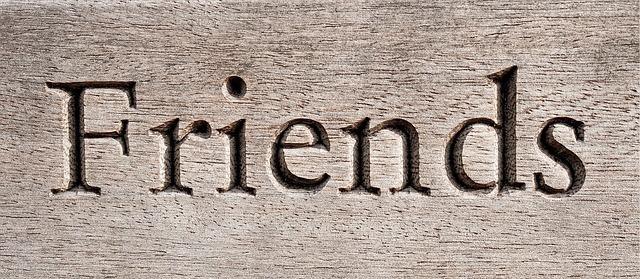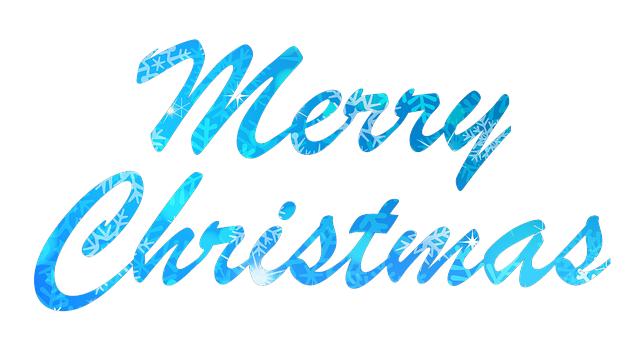
Are you looking to add a touch of sophistication and class to your designs? Look no further than Canva’s collection of formal fonts. In this article, we’ll show you how to master elegance with Canva’s formal fonts, helping you create polished and professional designs that will impress every time.
Choosing the Right Font for Elegance
When it comes to choosing the perfect font for elegance, it’s important to consider a few key factors to ensure your text looks sophisticated and refined. One of the first things to keep in mind is the type of project you are working on. Whether it’s a wedding invitation, a formal letter, or a high-end brochure, selecting the right font can make all the difference in conveying a sense of style and grace.
Another important aspect to consider is the readability of the font. While it may be tempting to choose a fancy, intricate font for a touch of elegance, it’s crucial to make sure that the text remains easy to read. Opt for fonts that are sleek and stylish, yet still legible. Some popular choices for elegant fonts include Times New Roman, Garamond, and Bodoni. Experiment with different options to find the perfect balance between sophistication and readability for your project.
Understanding the Importance of Formal Fonts in Design
When it comes to design, the choice of fonts plays a crucial role in conveying the intended message effectively. Formal fonts are especially significant as they add a sense of elegance and professionalism to any design. Whether used in a logo, website, or print materials, formal fonts can help to create a sophisticated and authoritative look that resonates with the target audience.
One of the key benefits of using formal fonts in design is that they can help establish a sense of credibility and trust. In the business world, first impressions are everything, and a well-chosen formal font can make all the difference in how a company is perceived. Formal fonts are also versatile and can be used in a variety of contexts, from annual reports and business cards to invitations and resumes. Their timeless quality ensures that they never go out of style, making them a wise choice for any design project.
Exploring Canva’s Selection of Elegant Fonts
If you’re looking to add a touch of sophistication to your design projects, Canva’s selection of elegant fonts is sure to impress. With a wide array of stylish typography options, you’ll have no trouble finding the perfect font to elevate your creations to the next level. From classic serifs to modern scripts, there’s something for every aesthetic taste.
One of the standout features of Canva’s elegant fonts is their versatility. Whether you’re working on a wedding invitation, a business presentation, or a social media post, these fonts can adapt to any project seamlessly. Plus, with the ability to customize the size, color, and spacing of each font, you can truly make it your own. So, why settle for ordinary when you can effortlessly elevate your designs with Canva’s elegant fonts? Start exploring today and unlock a world of creative possibilities.
Tips for Pairing Formal Fonts for a Polished Look
When it comes to pairing formal fonts for a polished look, it’s important to consider the overall aesthetic you want to achieve. Choosing complementary fonts can elevate your design and create a sophisticated and cohesive look. Here are some tips to help you choose the right fonts for a polished finish:
- Contrast is Key: Opt for fonts that have a distinct contrast in style and weight to create visual interest and hierarchy in your design.
- Stick to One Serif and One Sans Serif: To maintain a clean and professional look, use a serif font for headings and a sans serif font for body text. This combination offers a nice balance between tradition and modernity.
- Mind the Spacing: Pay attention to the spacing between letters and lines to ensure readability and a clean appearance. Adjusting the kerning and leading can make a big difference in the overall look of your design.
Pairing formal fonts doesn’t have to be intimidating. By following these simple tips, you can create a polished and sophisticated look that will elevate your design and leave a lasting impression. Remember to experiment with different fonts and combinations to find the perfect match for your project.
Creating Impactful Designs with Formal Fonts on Canva
When it comes to creating impactful designs, the font you choose can make all the difference. Formal fonts can add a touch of sophistication and elegance to your designs, making them stand out from the crowd. With Canva’s wide selection of formal fonts, you have the tools you need to create visually stunning designs that leave a lasting impression.
Q: Are there any tips for mixing formal fonts with other design elements?
A: When mixing formal fonts with other design elements, make sure to choose complementary fonts that enhance the overall aesthetic. Experiment with different font pairings to find the perfect combination for your design.
The Conclusion
In conclusion, with Canva’s formal fonts, you can effortlessly elevate your designs with a touch of elegance and sophistication.